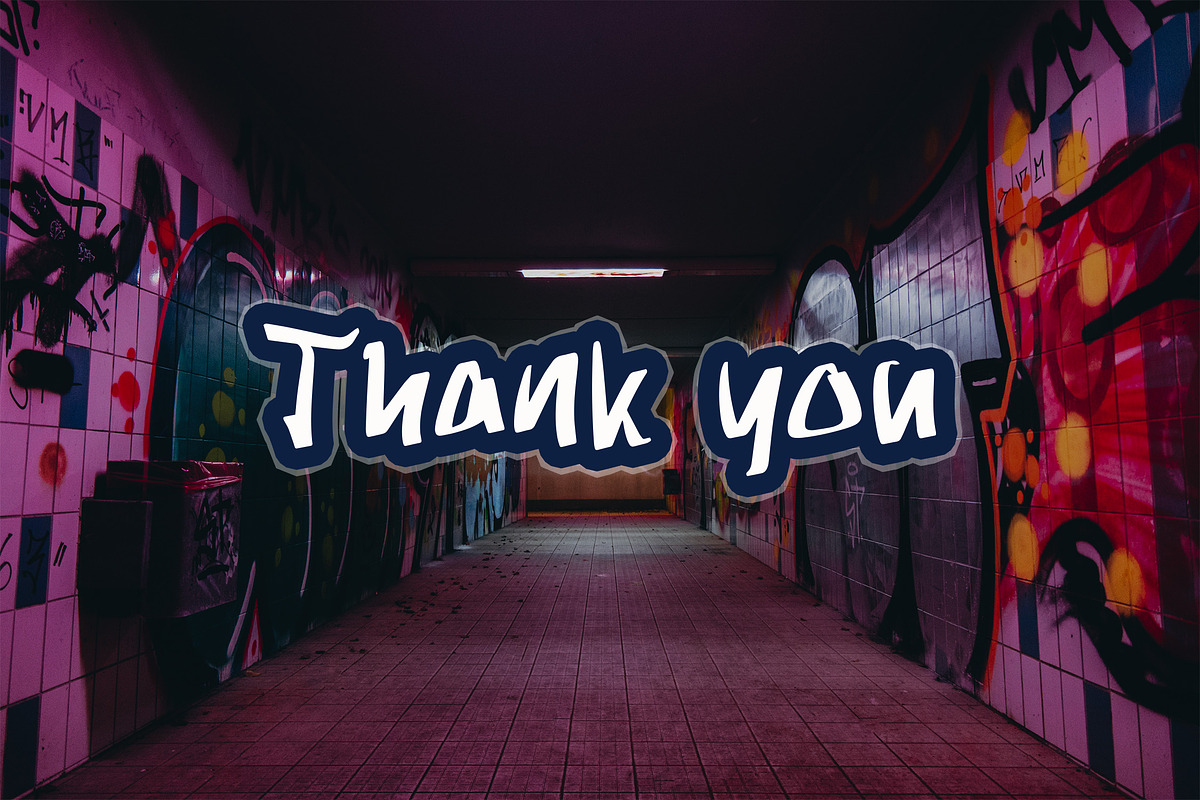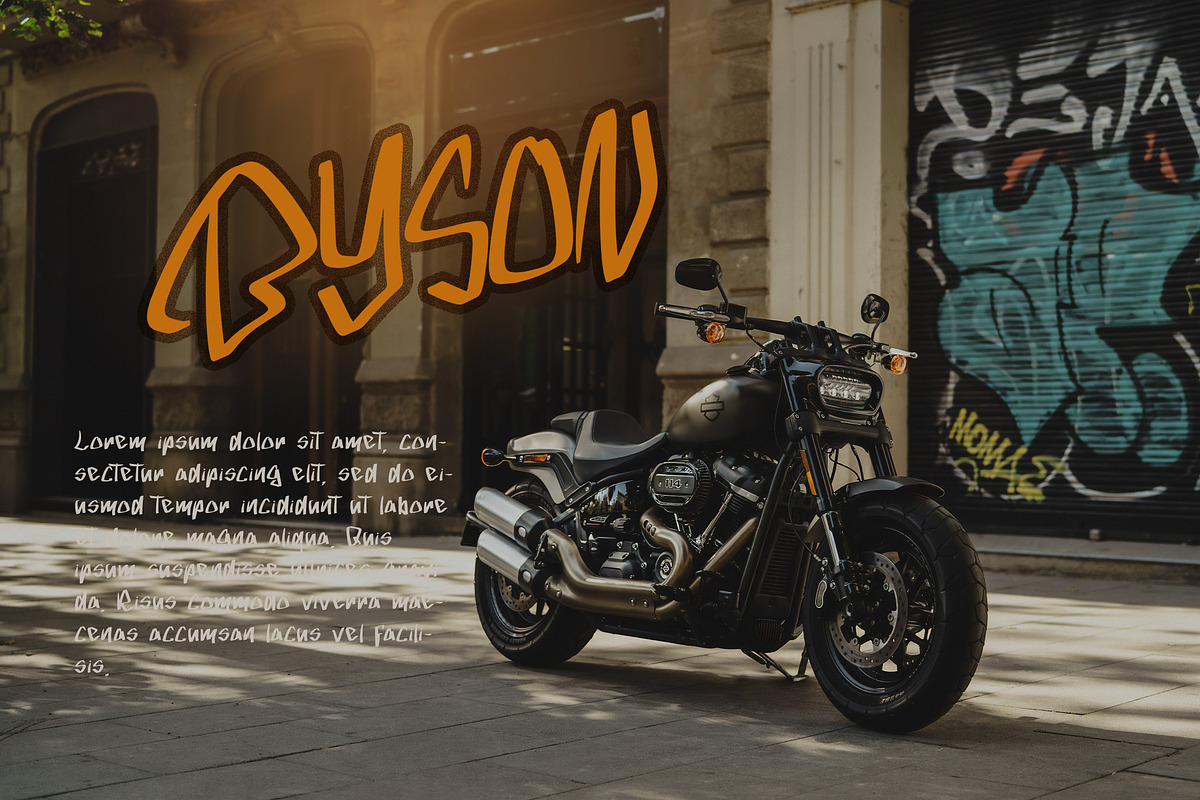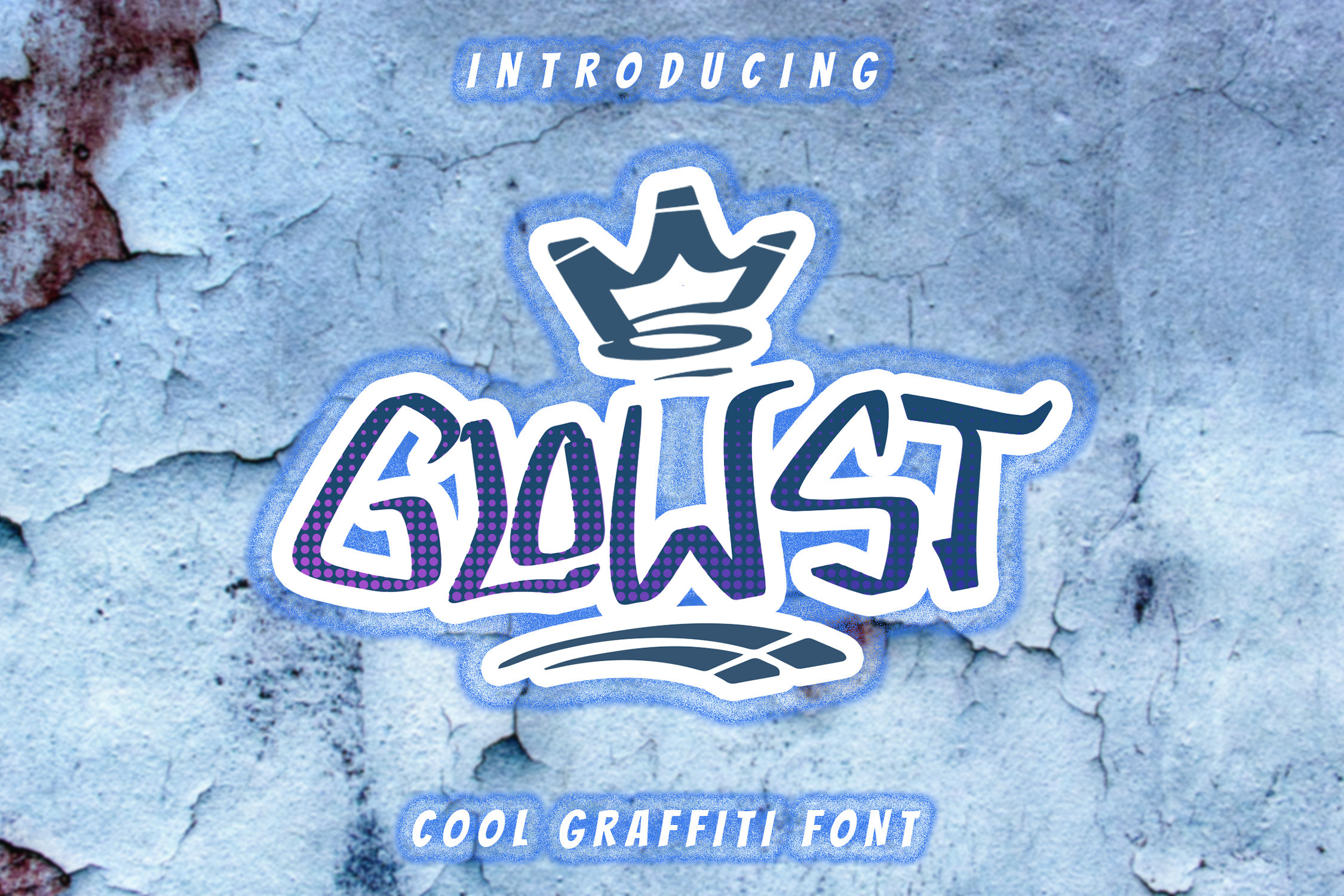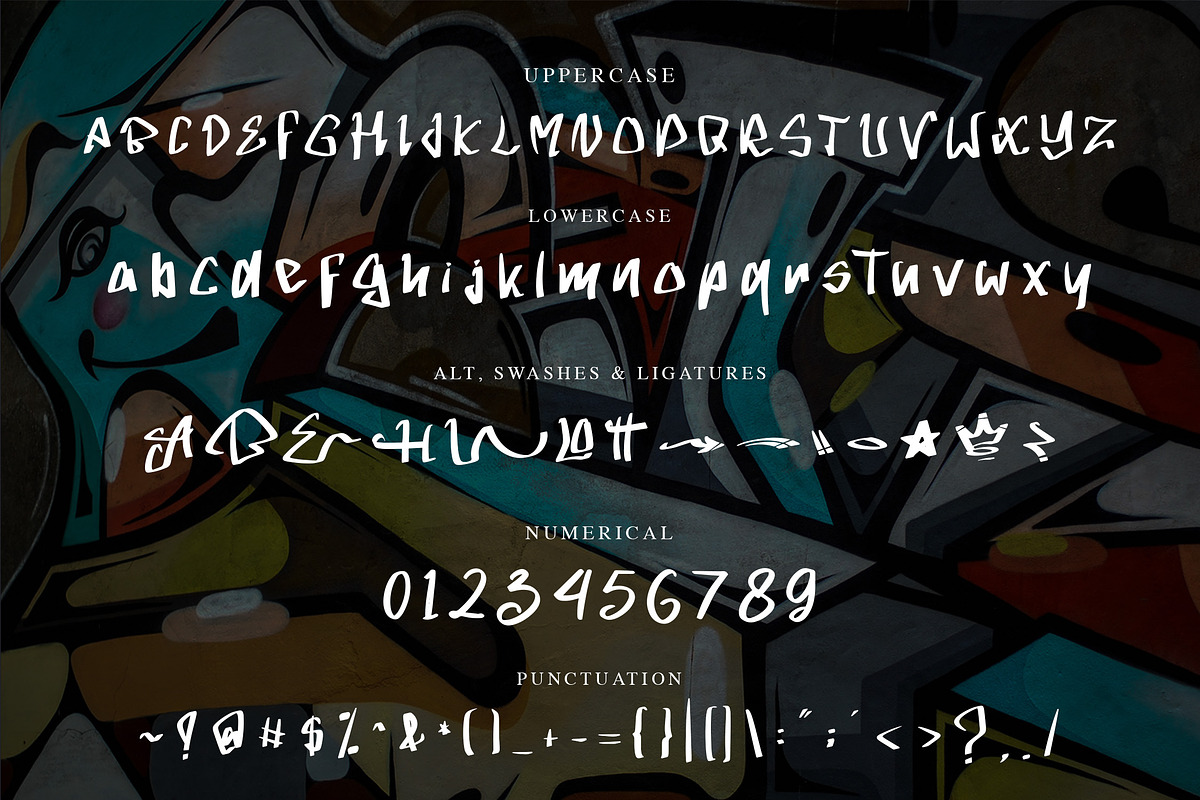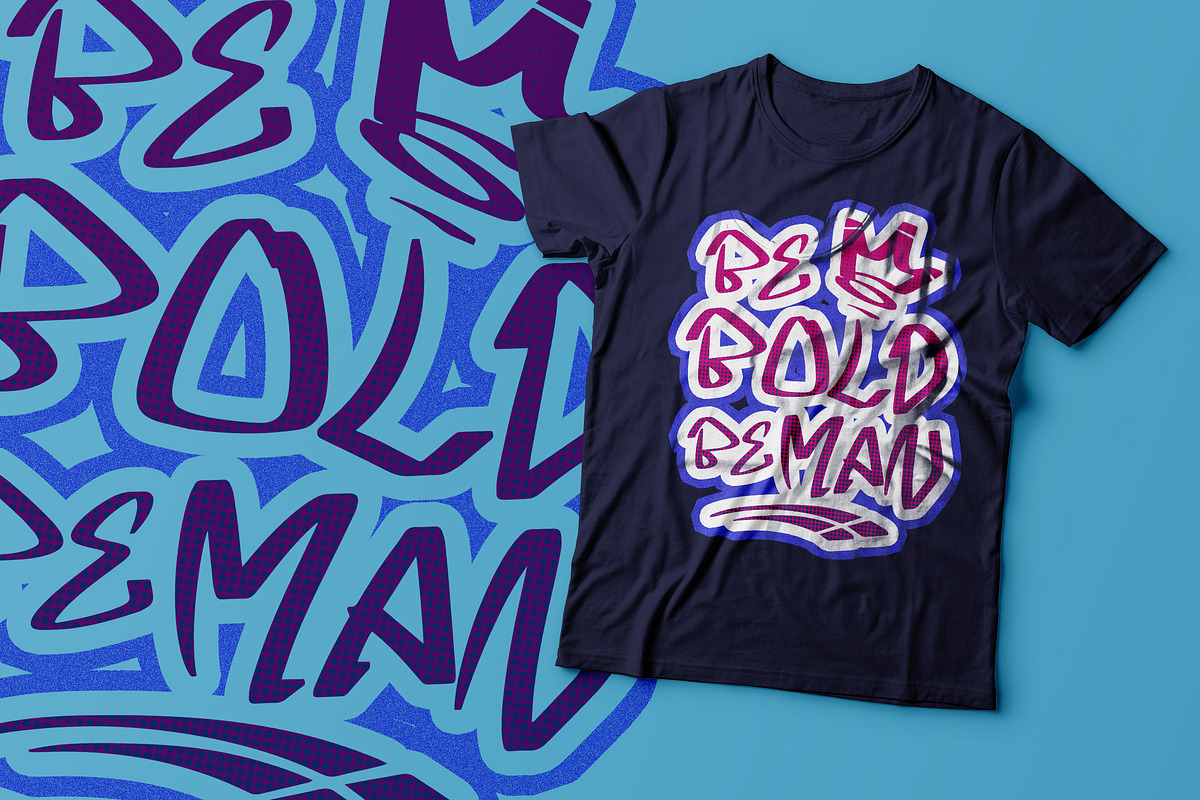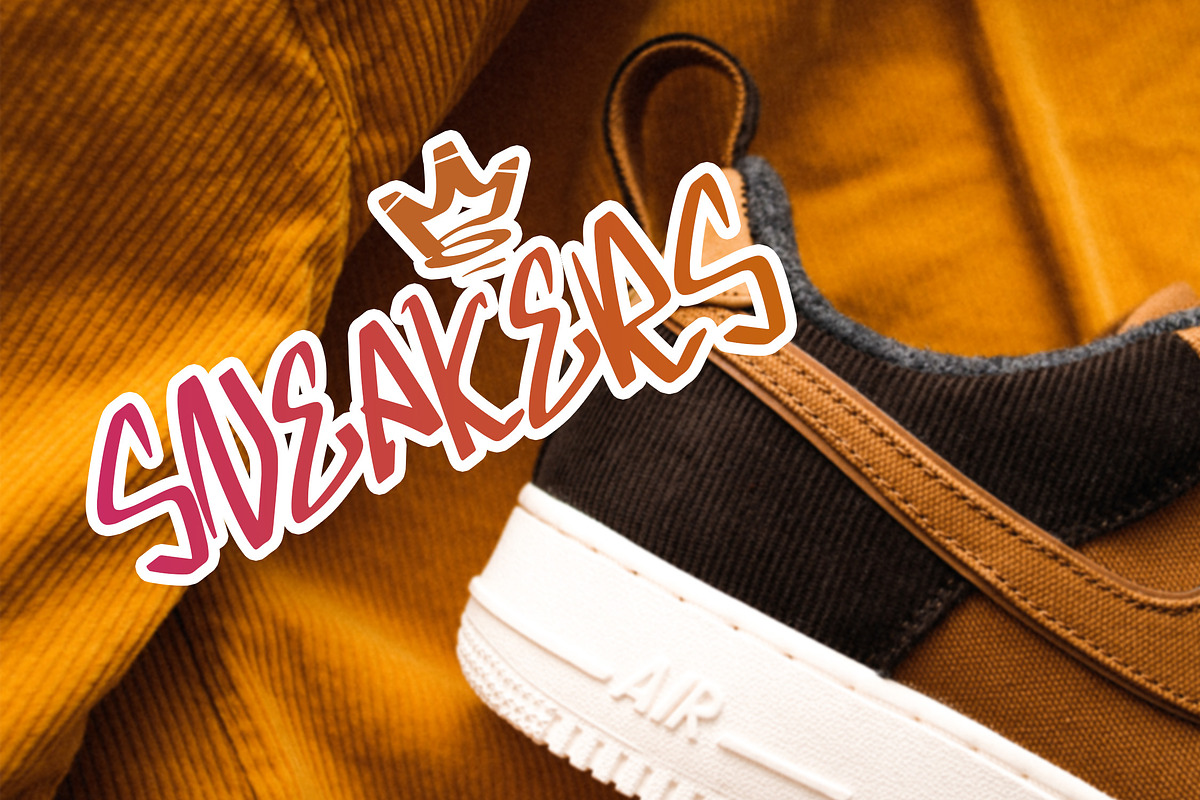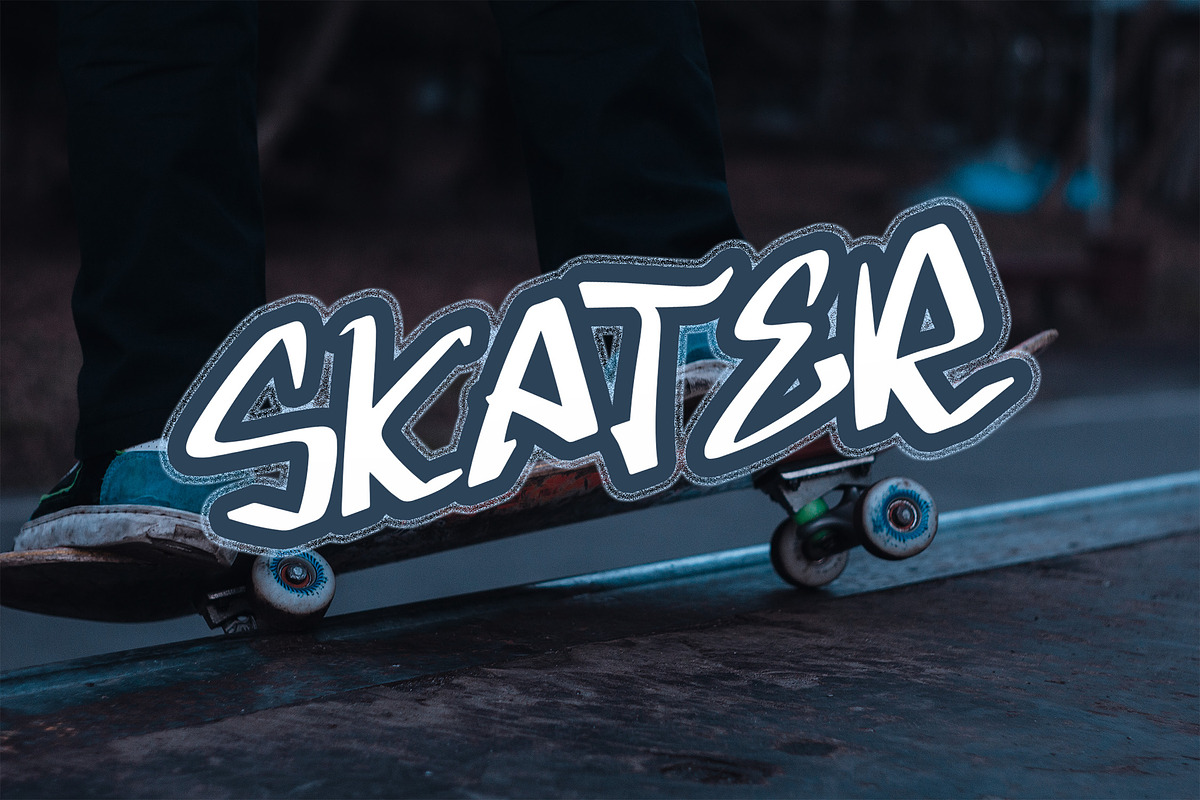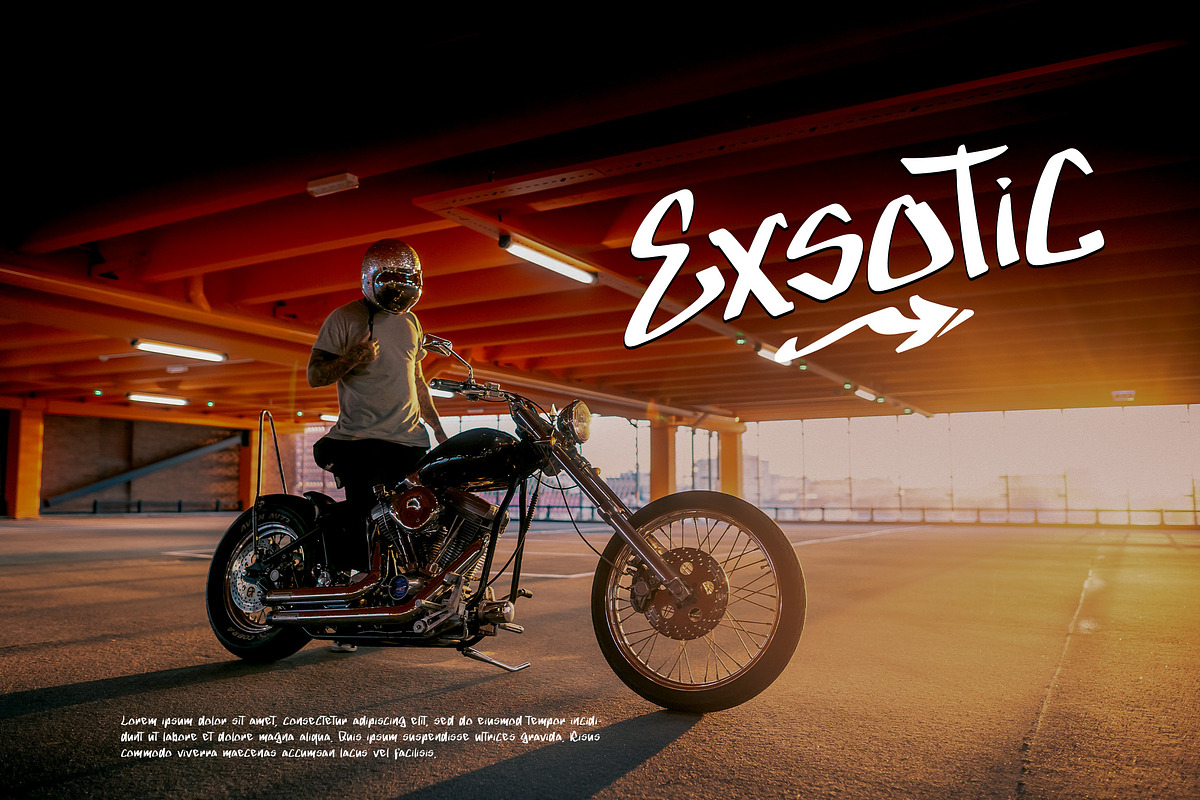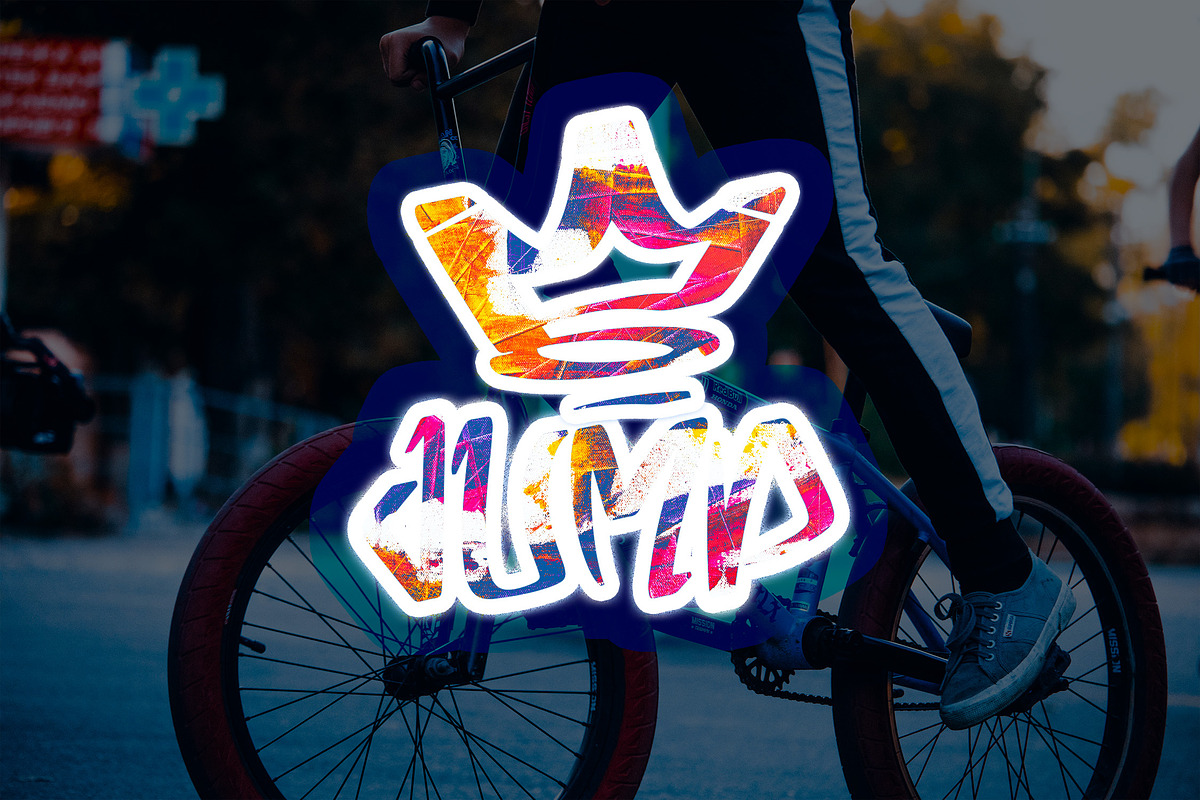
GLOWST - Graffiti Font
GLOWST is a Graffiti style font that is very suitable for the publication needs of street fashion, magazine, t-shirt design, and can also be used as a Graffiti logotype. This font is designed with a very beautiful graffiti style with various features in it. Made with hand scratches directly and then processed into font processing software.We are very grateful for your visit and download for this font.
GLOWST font with uppercase characters A-Z, lowercase characters a-z, punctuation, swashes, stylistic alternate and ligature characters that enhance this font shape.
-Ligature
-Stylistic Alternate
-Swashes